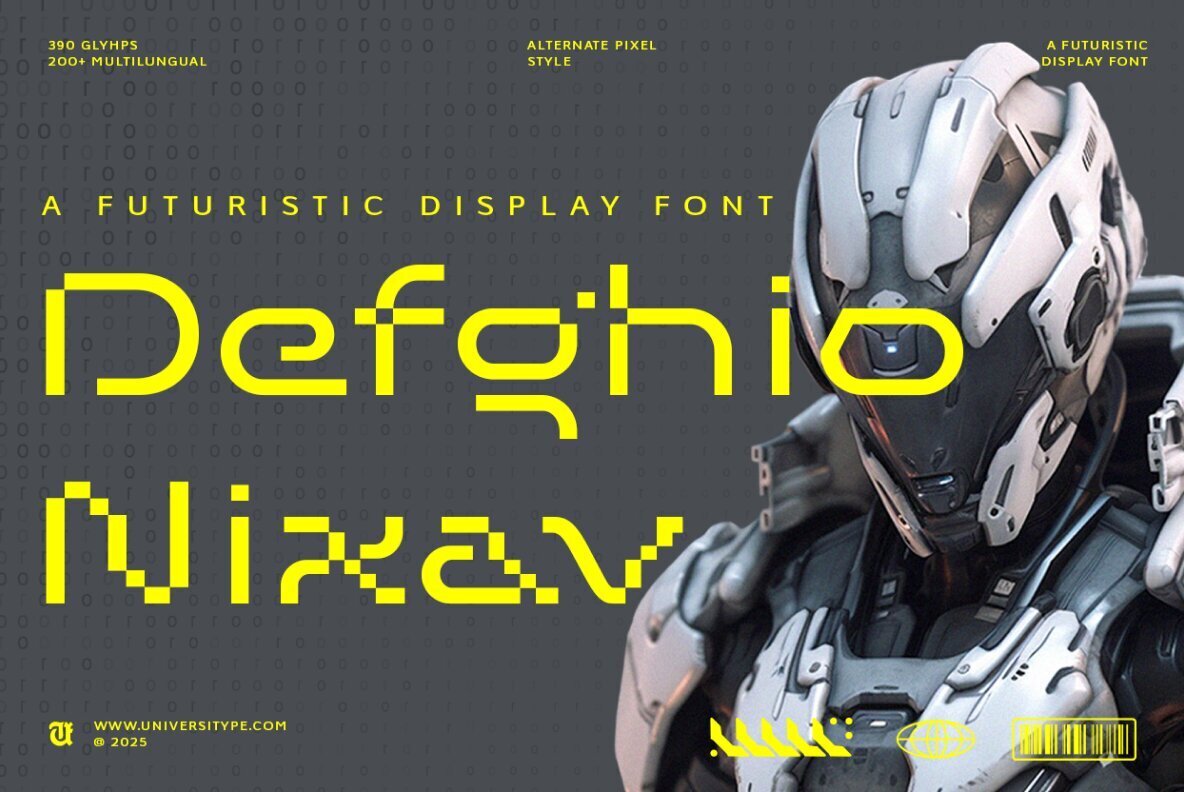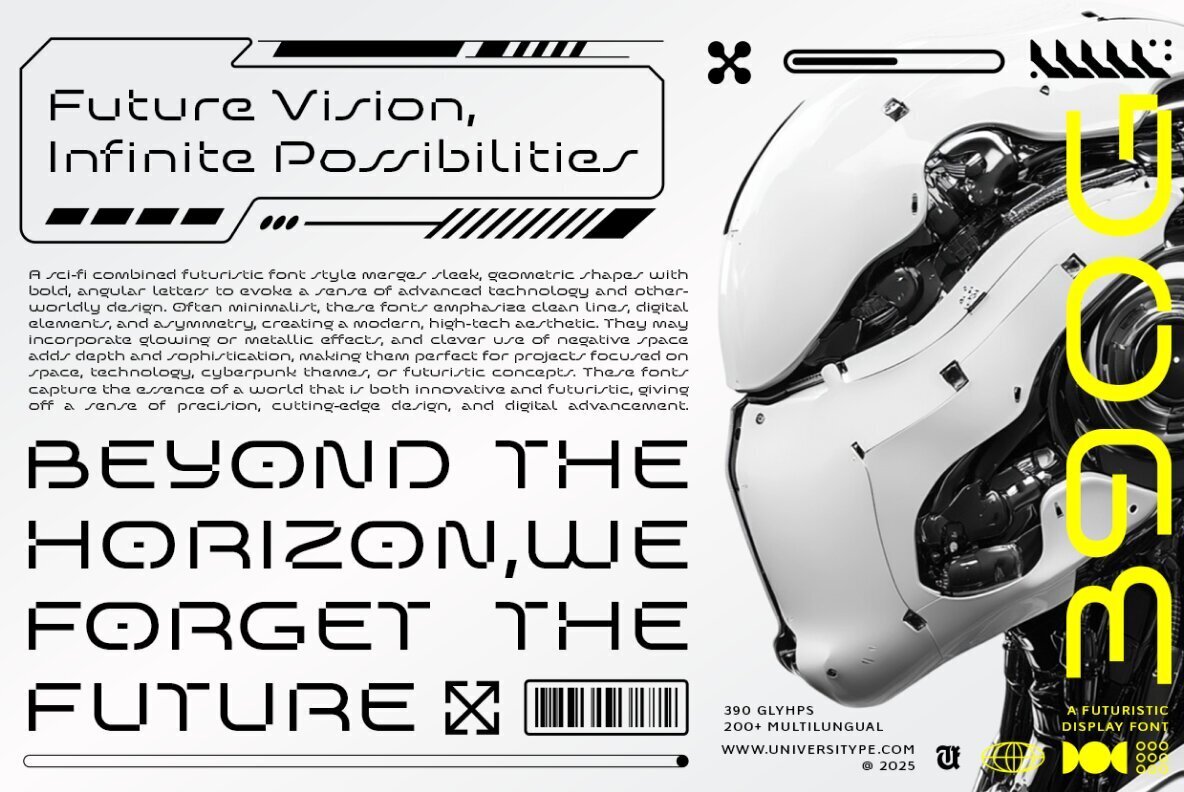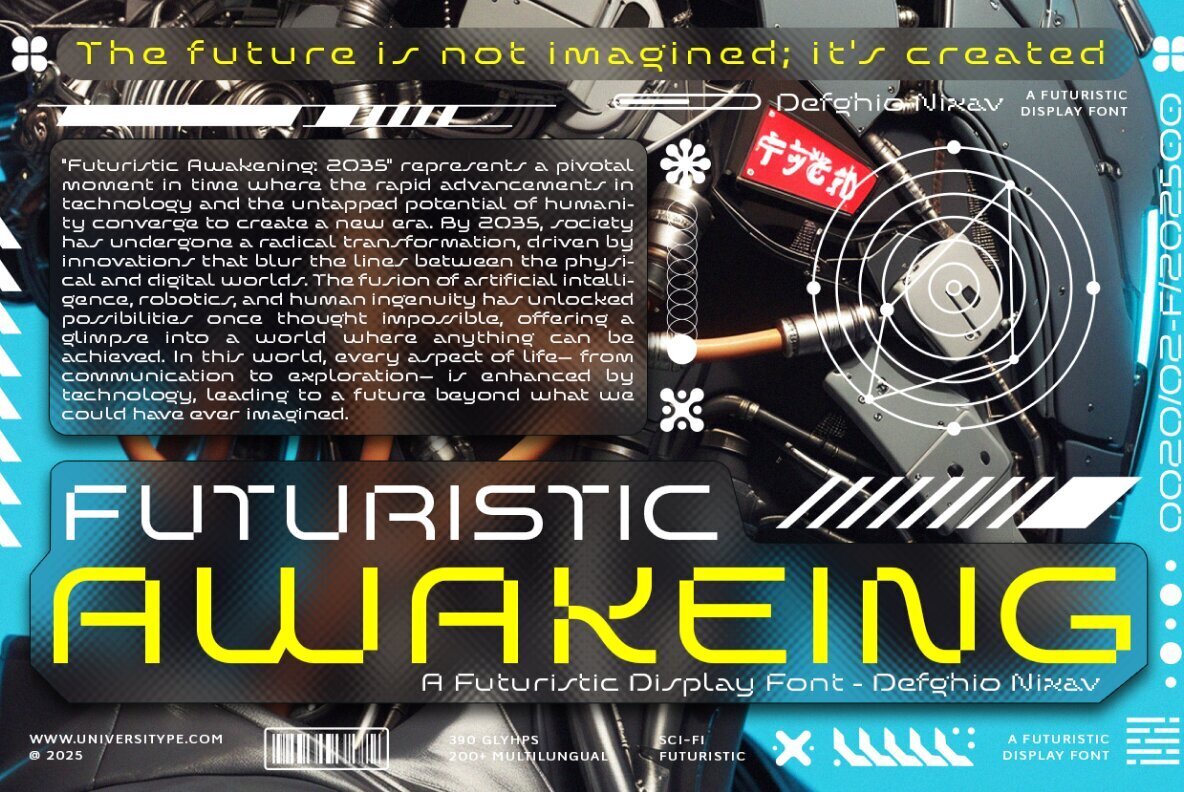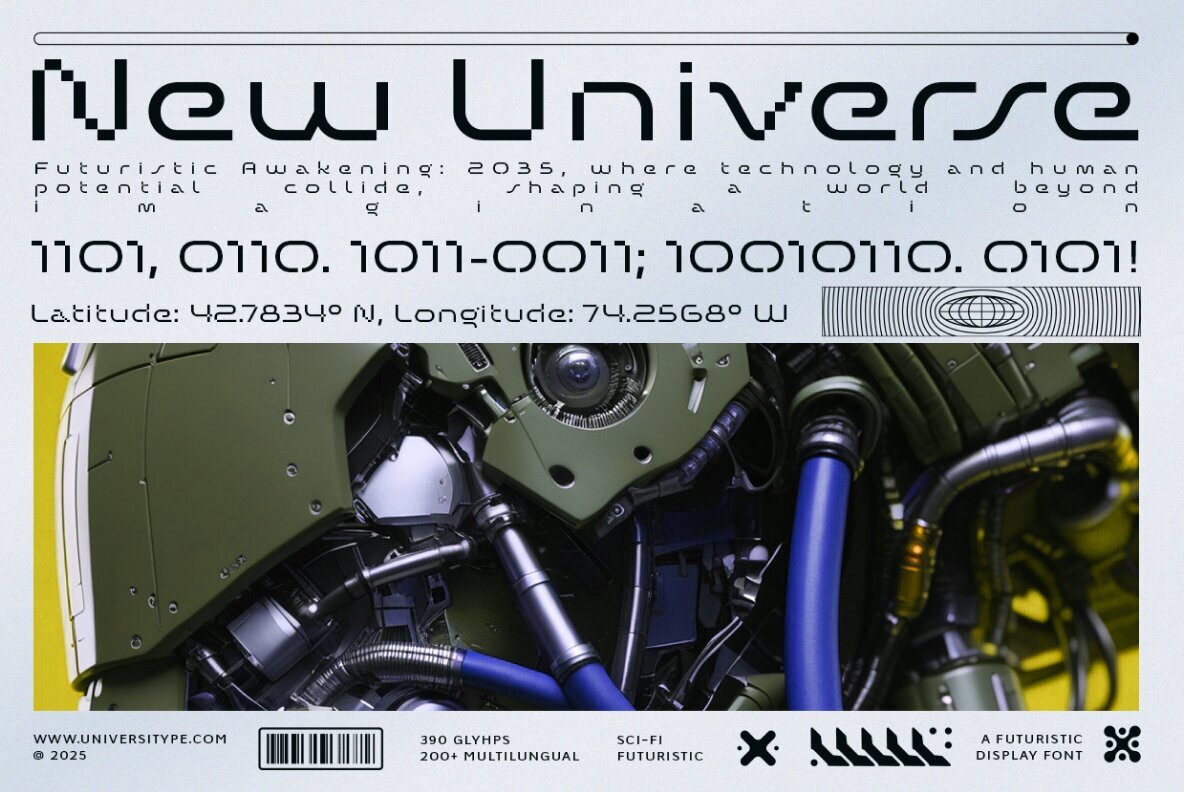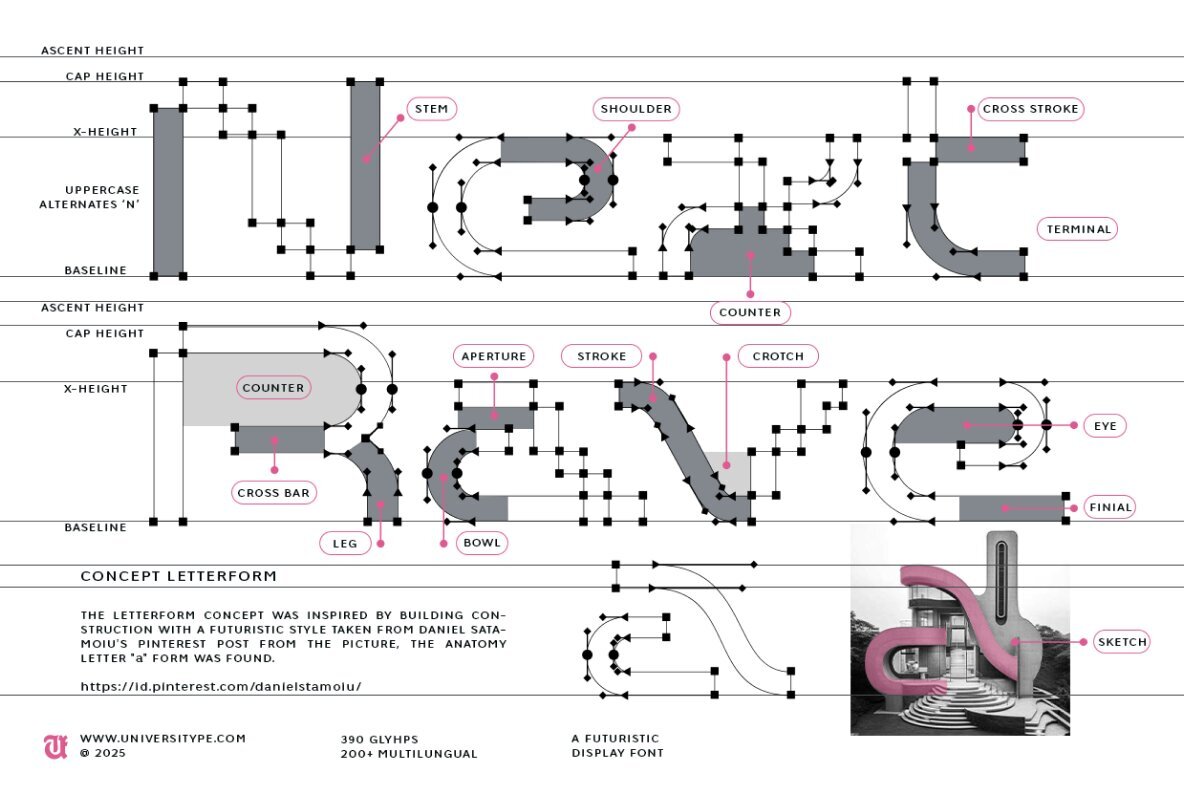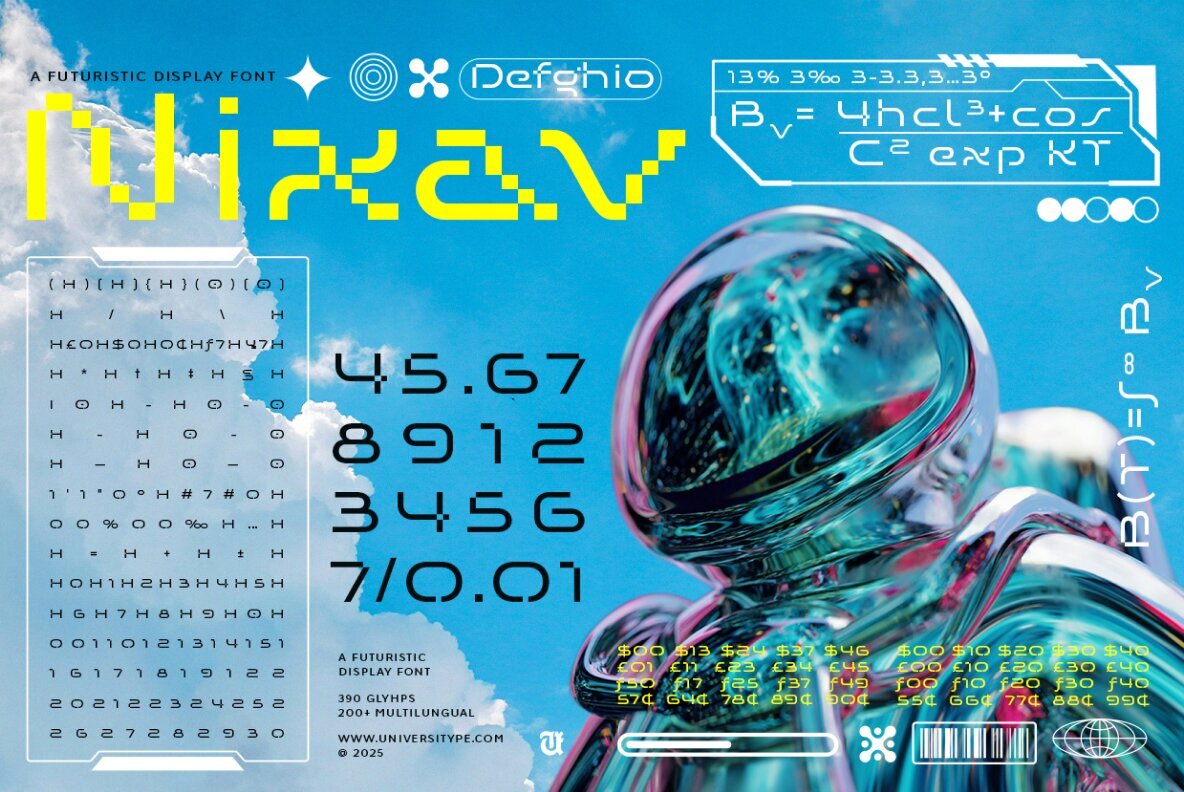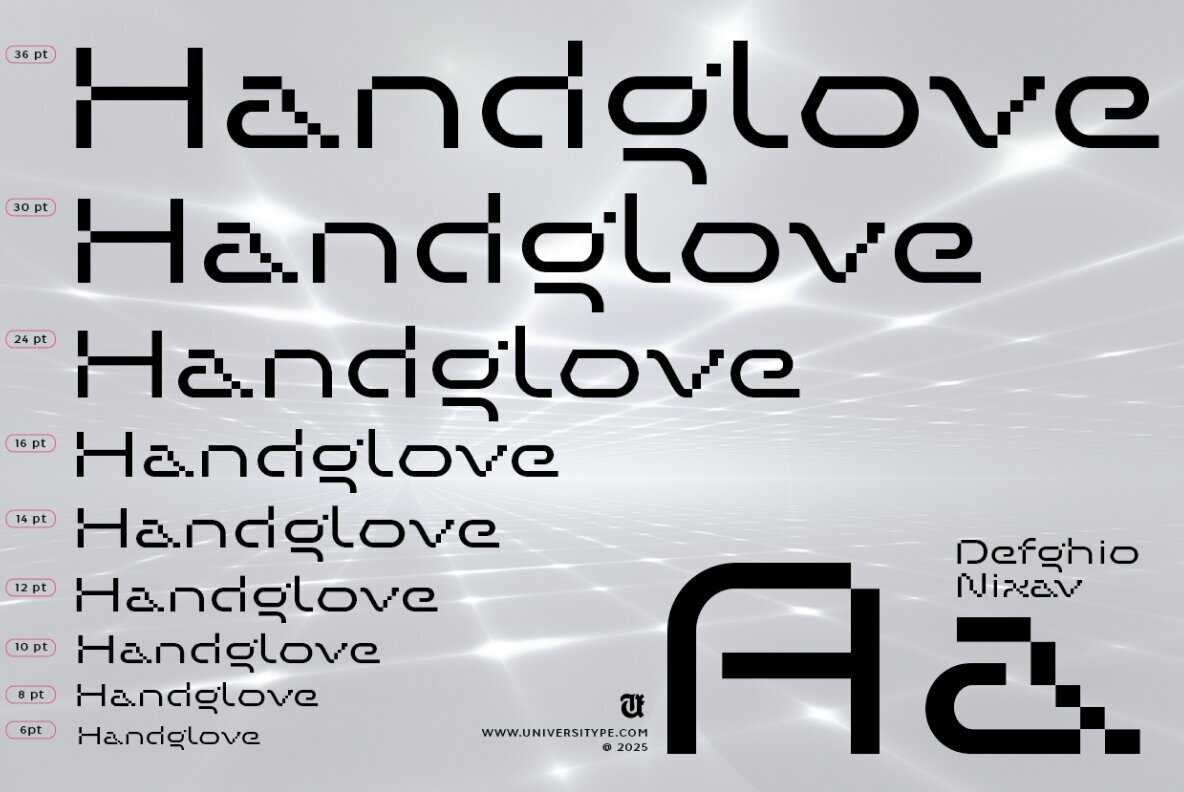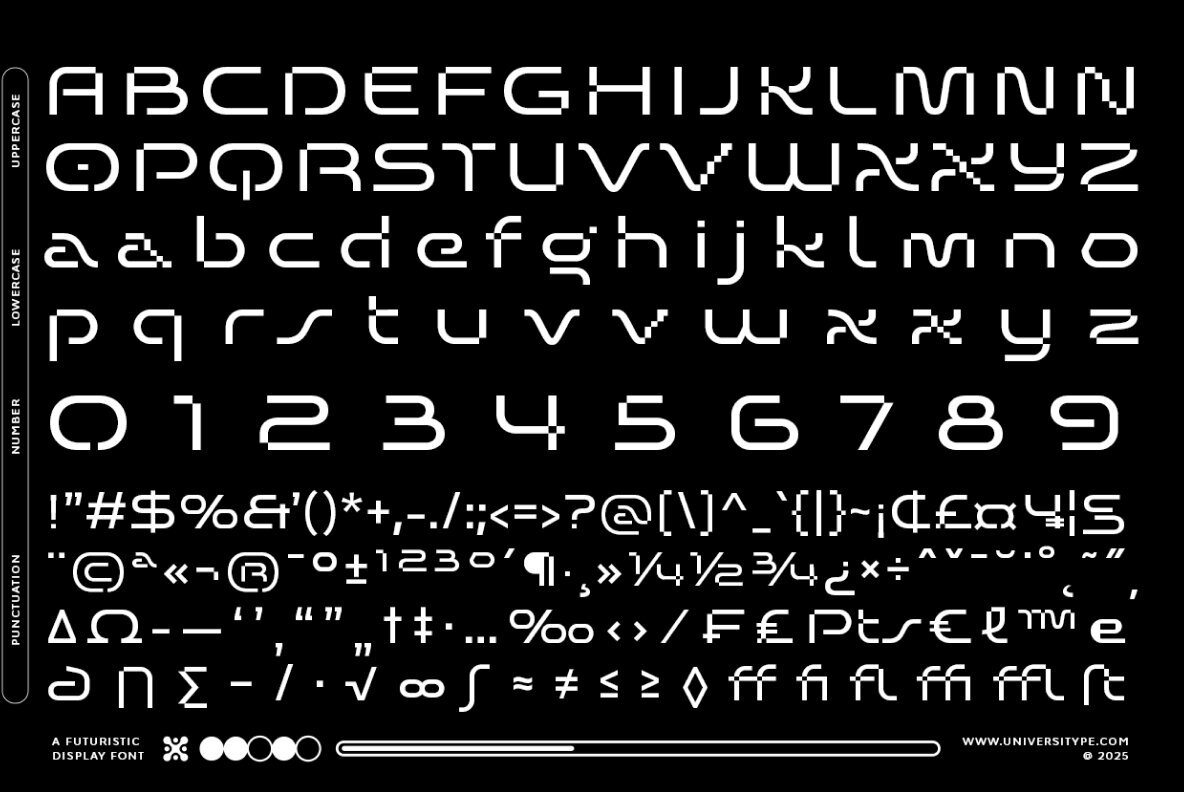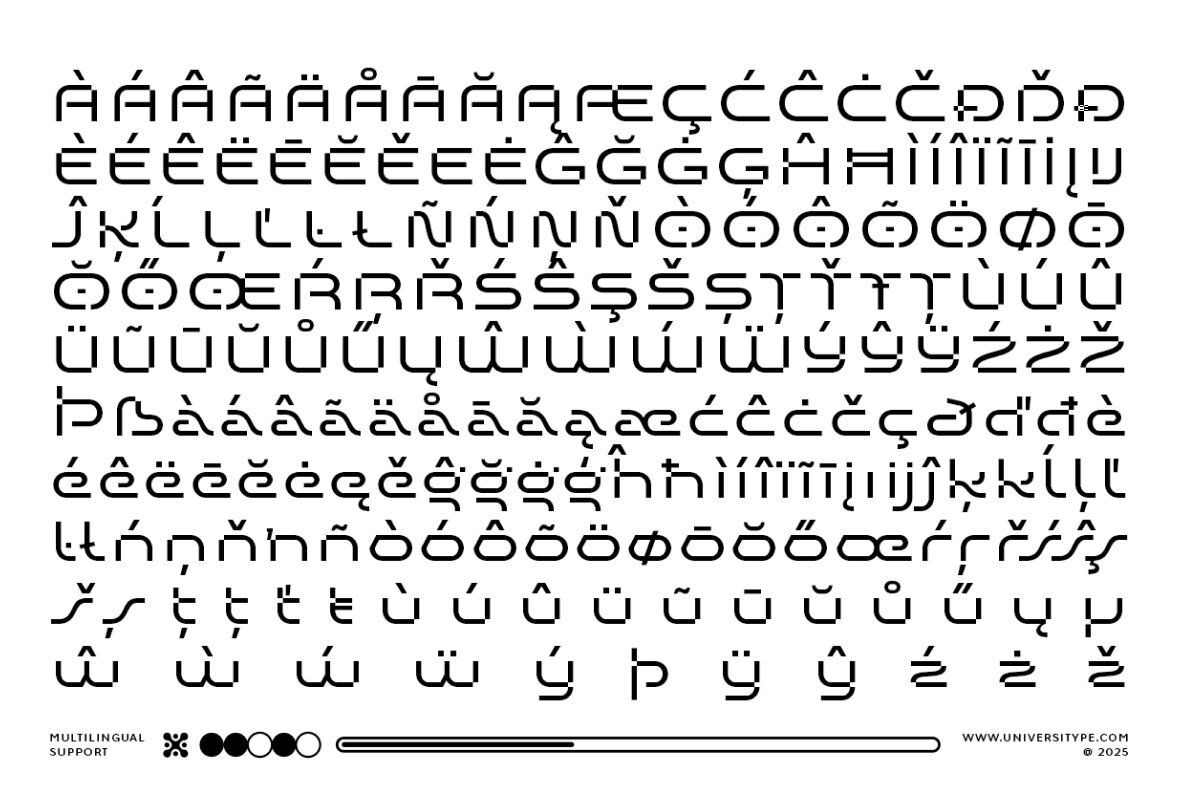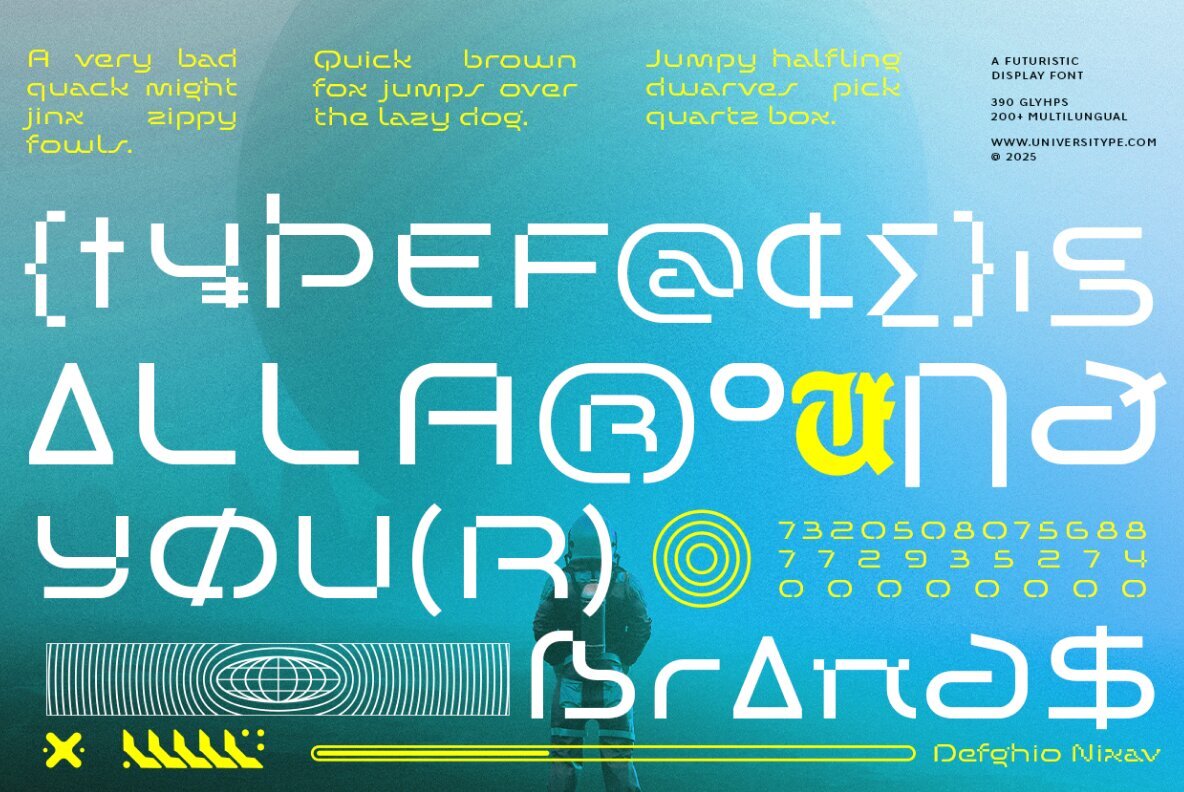
UT Defghio Nixav presents a bold, innovative display font that aligns perfectly with futuristic themes. Featuring angular geometry and a minimalist aesthetic, it intertwines advanced technology and visionary design. This font is ideal for projects keen on portraying innovation and digital advancement, infusing elements like glowing metallic effects, asymmetry, and masterful use of negative space for depth and sophistication. Rooted in a seamless blend of technology and creativity, UT Defghio Nixav is inspired by futuristic architecture and science fiction. It showcases a visionary outlook on the future, where design transcends traditional boundaries and enters realms of boundless potential. Whether enhancing tech interfaces or enriching sci-fi narratives, this font calls upon users to embrace the progress and exploration in design and technology.UT Defghio Nixav: Embrace the Future